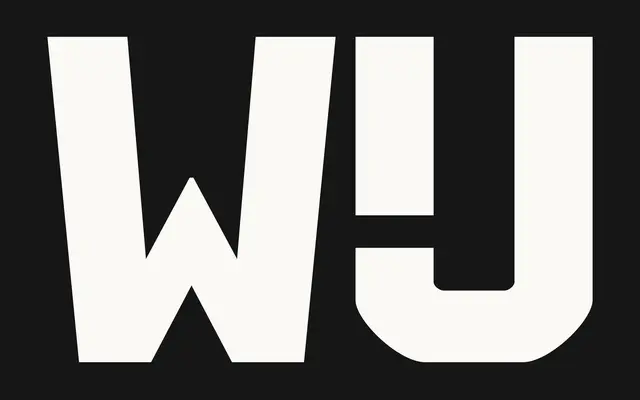
VTC Wij
Vocal Type · 2025
A display typeface drawn from a 1988 Dutch protest banner made during the campaign to rehabilitate anti-colonial writer and resistance fighter Anton de Kom.
The letterforms are derived from archival sources, primarily a banner produced by LOSON during their eerherstel campaign for Anton de Kom, and cross-referenced against Dutch protest materials spanning the 1960s to 1980s. Strokes are upright and near-uniform in weight, with each character occupying roughly the same horizontal space regardless of internal structure, reflecting the logic of hand-lettering made to be read at scale across large crowds. The Dutch digraph IJ is included as a single glyph, drawn from banners produced by the feminist coalition Wij Vrouwen Eisen.
Drawn from handmade protest banners, the letterforms are upright with near-uniform stroke weight and consistent width across characters, placing it firmly in the display category with a hand-lettered subcategory rooted in activist typography.